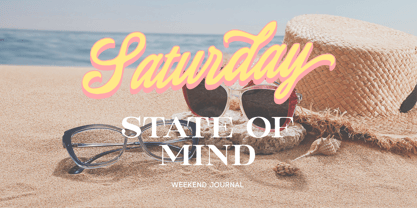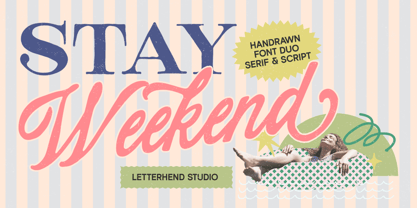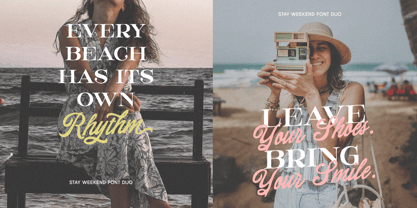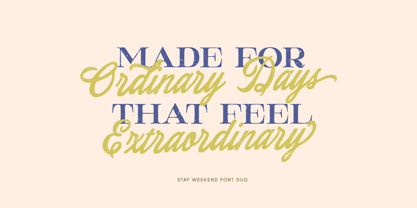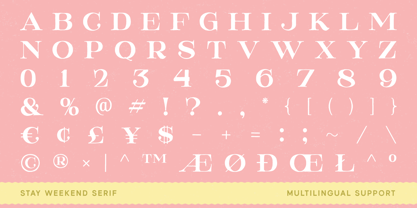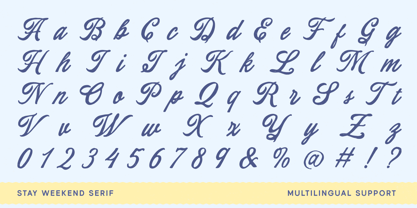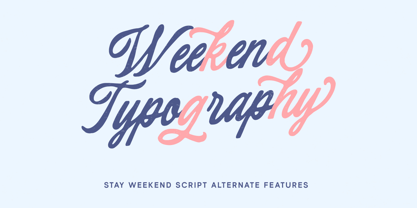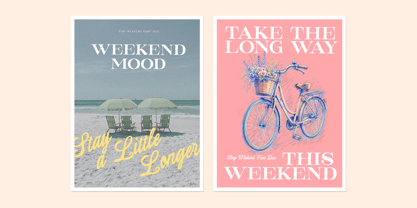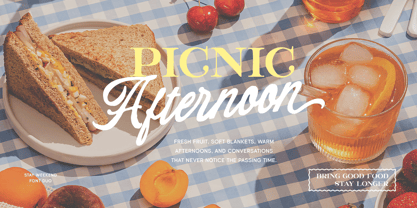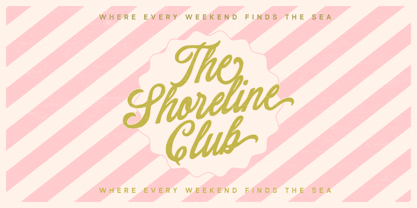
Stay Weekend
This weekends deserve to linger a little longer, and Stay Weekend captures that feeling in every letter. This expressive serif and script duo blends refined elegance with an easy handwritten rhythm, giving headlines and logos a naturally welcoming personality.
Features :
• Uppercase & lowercase
• Numbers and punctuation
• Alternate Characters
• Multilingual Support